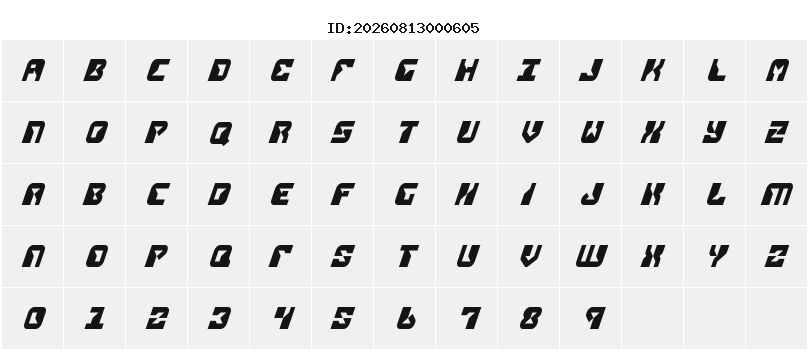
Replicant Condensed Italic Preview
• Font Name: Replicant Condensed Italic
• Font Style: Condensed Italic
• Full Font Name: Replicant Condensed Italic
About Replicant Condensed Italic.ttf
Replicant Condensed Italic.ttf is a modern, elegant sans-serif font designed for ultimate readability and visual harmony. Perfect for branding, headlines, web design, and print materials.